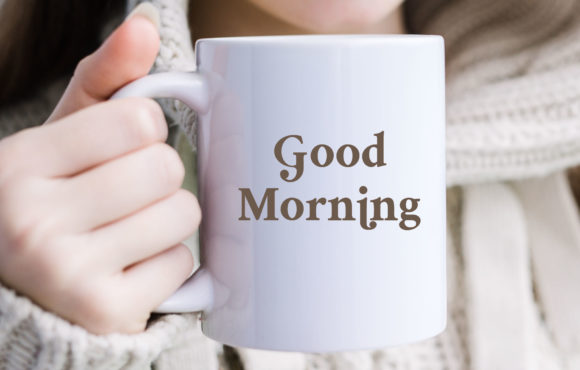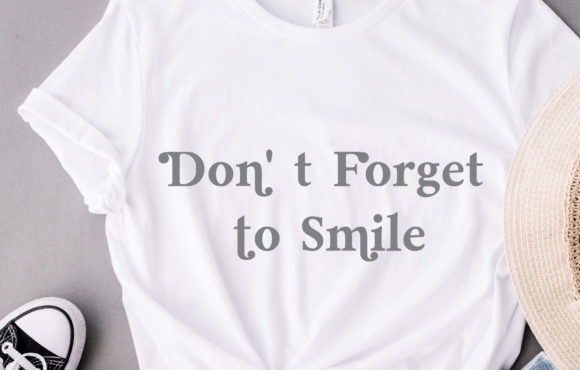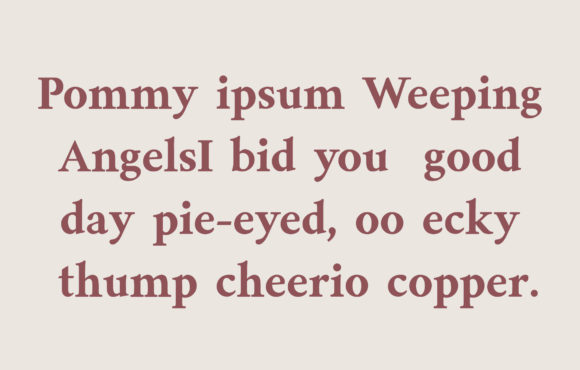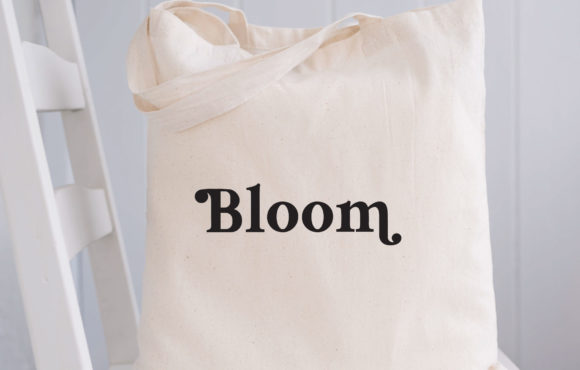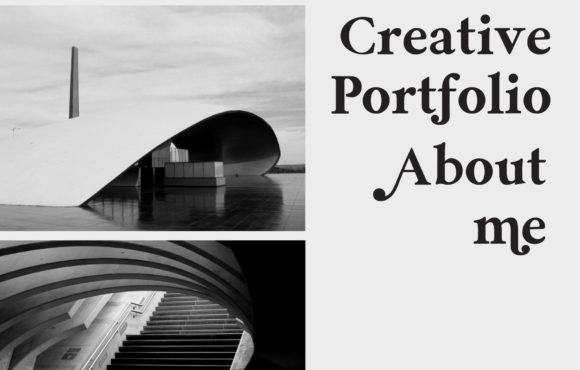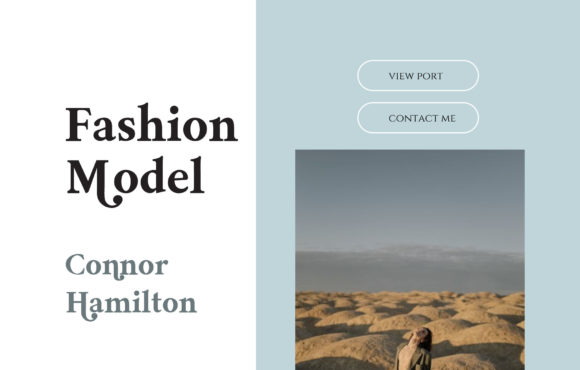
Discovering the Perfect Fin: Dolphin Font
Have you ever stared at a blank canvas, mind racing with ideas, but struggling to find the perfect font to bring your vision to life? This is a familiar moment for many creatives. The right font can make all the difference, elevating your design from ordinary to extraordinary.
Enter the Dolphin Font, a stylish and beautiful serif font designed to make a splash in your creative projects. Suitable for logotype, headlines, and corporate identities, Dolphin Font is the perfect companion for designers looking to add a touch of elegance and sophistication to their work.
What sets Dolphin Font apart is its versatility and value for designers. With its unique style and wide range of applications, it’s a valuable addition to any creative toolkit, making it an essential choice for designers looking to take their projects to the next level.
Dolphin Font Key Features
- Unique Characteristics: The Dolphin Font features a stylized, playful design with a mix of bold and rounded lines, making it perfect for creating eye-catching headlines and titles.
- Font Family: Dolphin Font comes in a single font family with 4 weights: Light, Regular, Bold, and Extra Bold, allowing for flexibility in design and layout.
- Language Support: Dolphin Font supports a wide range of languages, including Latin, Cyrillic, and Greek alphabets, making it suitable for global branding and design applications.
- Scalability: Dolphin Font is designed to be highly scalable, ensuring that it looks great in various sizes and resolutions, from small text to large headlines.
Dolphin Font Review
Overall, the Dolphin Font has some unique features that make it stand out. Here are some of the things that work well:
- ✨ **Playful and whimsical feel**: The Dolphin Font has a fun, carefree vibe that’s perfect for creating a lighthearted and approachable brand identity.
- ✨ **Customizable**: The font is highly customizable, allowing designers to adjust the spacing, size, and style to suit their needs.
- ✨ **Clear and legible**: Despite its playful nature, the Dolphin Font is surprisingly clear and easy to read, making it a great choice for body text.
- ⚠️ **Limited support for small text**: The font can become pixelated and difficult to read when used at small sizes, which may limit its use in certain applications.
- ⚠️ **May not be suitable for formal brands**: The Dolphin Font’s playful feel may not be the best fit for formal or professional brands, where a more conservative font is often preferred.
In general, the Dolphin Font is a great choice for designers looking to add a touch of whimsy and fun to their projects. While it may have some limitations, its unique features and high customizability make it a valuable addition to any design toolkit.
Dolphin Font Practical Application Guide
Tips for Getting the Most Out of the Dolphin Font
Use the Dolphin Font for creative and playful designs, such as:
1. Children’s book illustrations
2. Cartoon-style graphics
3. Social media graphics
4. Advertising materials
The Dolphin Font is ideal for:
1. Whimsical branding
2. Friendly and approachable messaging
3. Creative and imaginative storytelling